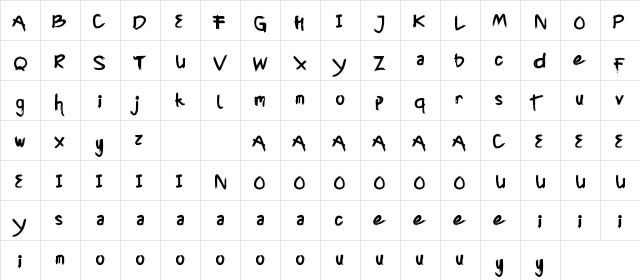
Cyttah Demo Regular
| Foundry | Edric Studio |
| Designer | Renata Insan C |
Design Context for Cyttah Demo Typeface
Cyttah Demo is a composed and adaptable typeface that performs quietly and consistently across a wide range of design contexts.